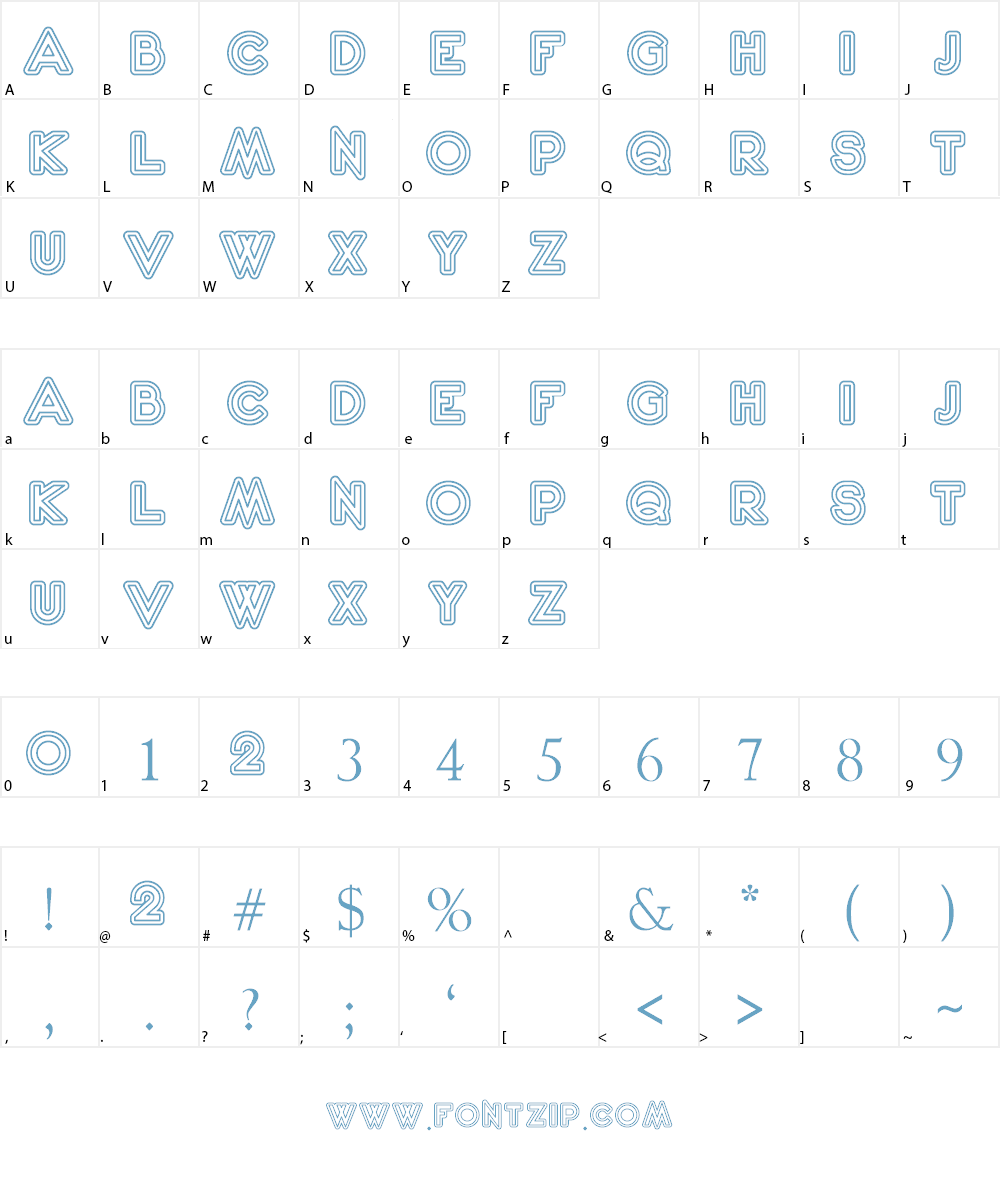
2020 Outline Kei Display Font - a new font look with the feel of the new year 2020 and winter in outline style, perfect for this year's amazing new year project.